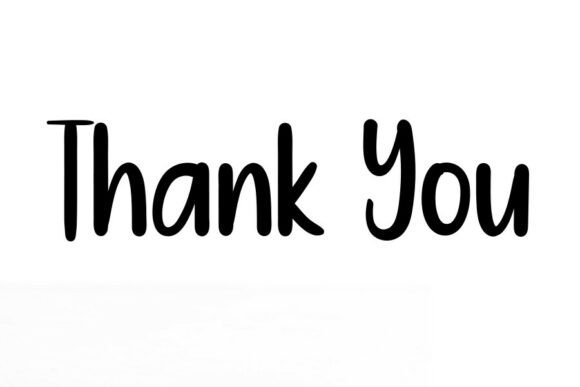
Introduction to Jungles Font
Have you ever been rummaging through your craft room, searching for the perfect font to bring your creative project to life? Maybe you’re designing a birthday card for a loved one, or perhaps you’re working on a new logo for your small business. Whatever your project may be, finding the right font can make all the difference. That’s where the Jungles Font comes in – a simple, yet versatile handwritten font that’s sure to add a touch of natural charm to your next design.
As a designer, you’re likely no stranger to the importance of having a reliable design resource at your fingertips. With the Jungles Font, you can expect high-quality results every time, from greeting cards to headlines. Plus, with its transparent background, you can easily layer it over your favorite images or use it on its own – the possibilities are endless!
Key Features of Jungles Font
- High-quality, hand-drawn design ideal for creative projects requiring a unique touch.
- Transparent background, allowing for seamless integration into various design resources.
- Comes in a single weight, suitable for a variety of design applications.
- Perfect for adding a touch of whimsy and playfulness to logos, branding materials, and other design elements.
Honest Review: Jungles Font
I recently stumbled upon the Jungles Font while searching for a unique design resource for my creative project. At first glance, I was blown away by its quirky and adventurous vibe. The font is perfect for any project that needs a touch of exotic flair.
- ✨ High-quality graphics: The font’s design is crisp and well-detailed, making it perfect for high-resolution prints.
- ✨ Versatility: Jungles Font can be used in a variety of creative contexts, from branding to editorial content.
- ⚠️ Limited font styles: While the font itself is great, I wish there were more styles to choose from, such as italic or bold.
Overall, I’m impressed with the Jungles Font and would definitely recommend it to fellow designers looking for a unique design resource. With a little creativity, you can make it work for any project, even with its limitations.
To get the most out of Jungles Font, consider using it with a transparent background to create a sense of depth and dimension. You can also experiment with different font sizes and styles to add visual interest to your design.
The Jungles Font is ideal for use in a variety of creative projects, including logos, graphics, and presentations. Its unique style and high quality make it a great choice for designers looking to add a touch of elegance and sophistication to their work.